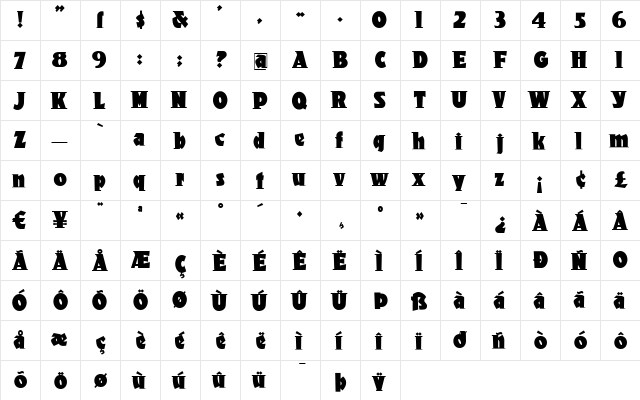
OnKochsRoots Regular
Design Context for OnKochsRoots Typeface
OnKochsRoots is a composed and adaptable typeface that performs quietly and consistently across a wide range of design contexts.